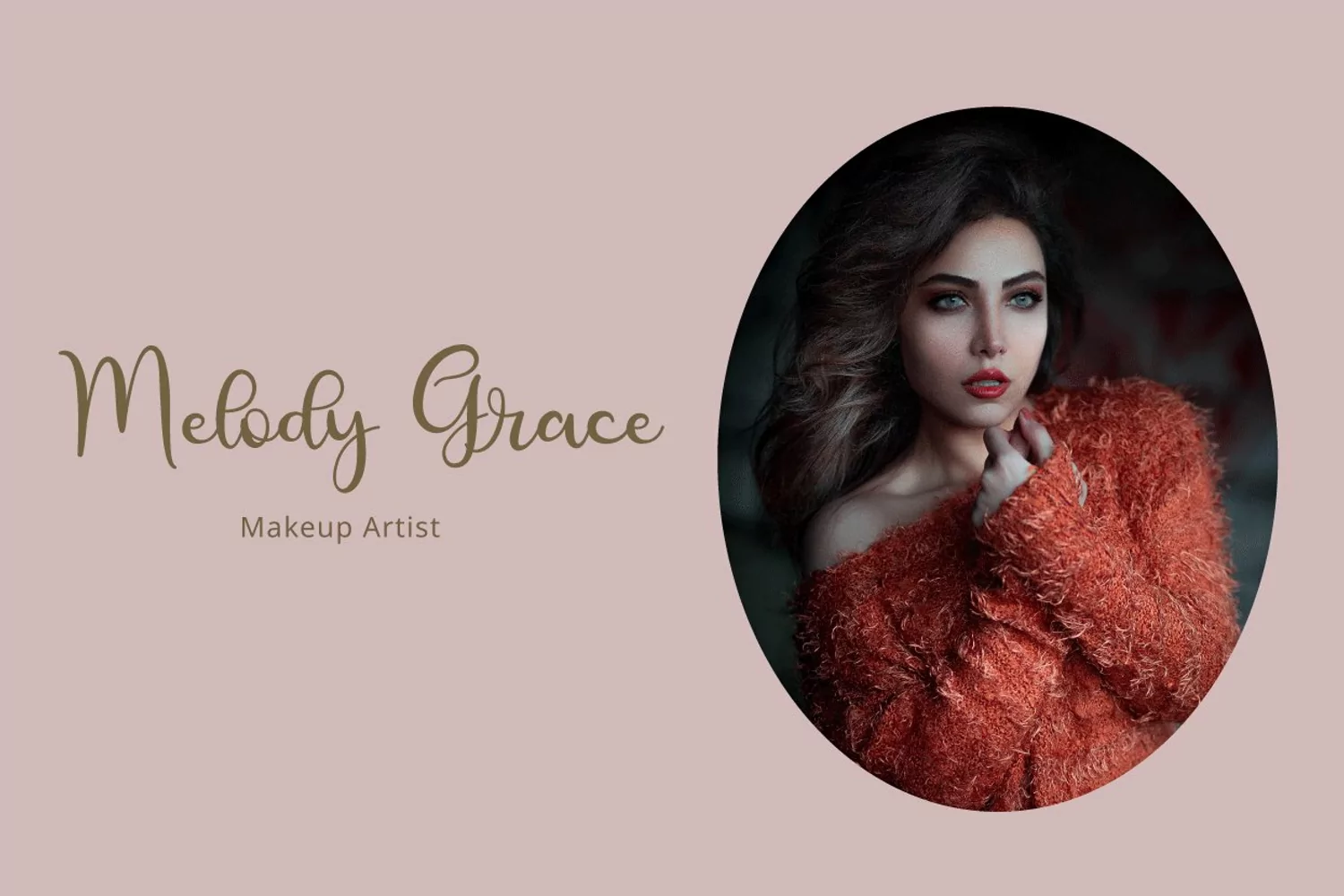
Absolute Vision Handwritten
Hilary Patricia is modern script calligraphy style. Its friendly feel makes this font incredibly versatile, fitting a wide range of contexts. It looks stunning on thank you cards, quotes, greeting cards, logos, business cards and every other design which needs of a art. Add it to your creative ideas and notice how it makes them stand out!